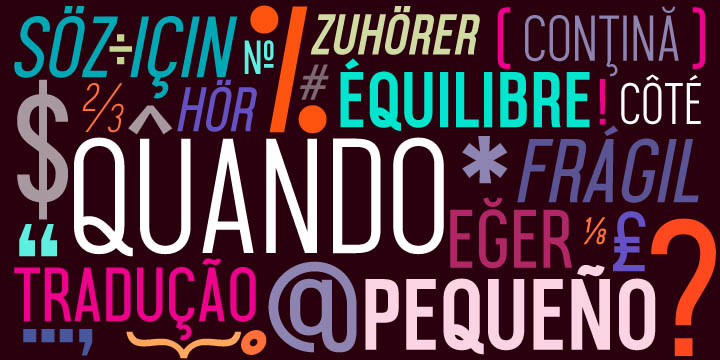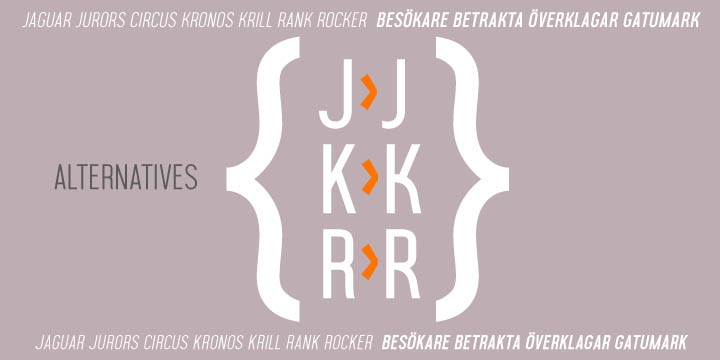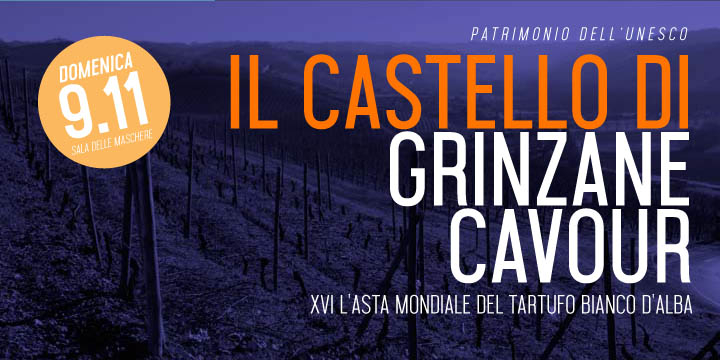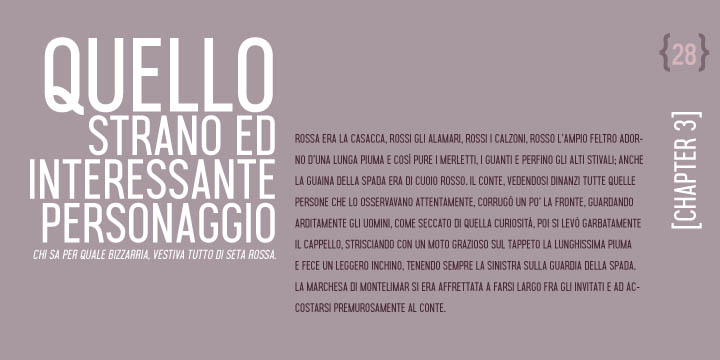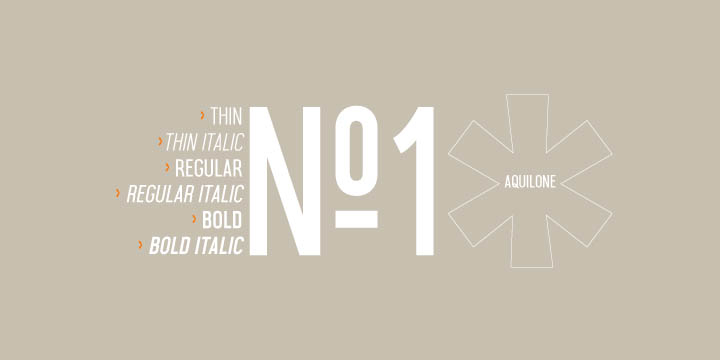
Designed by Magdalena Boffito, Aquilone is a display sans font family. This typeface has six styles and was published by mezzo-mezzo.
Aquilone is a condensed geometric sans serif typeface, simple and functional. It includes stylistic alternates and multiple language support.